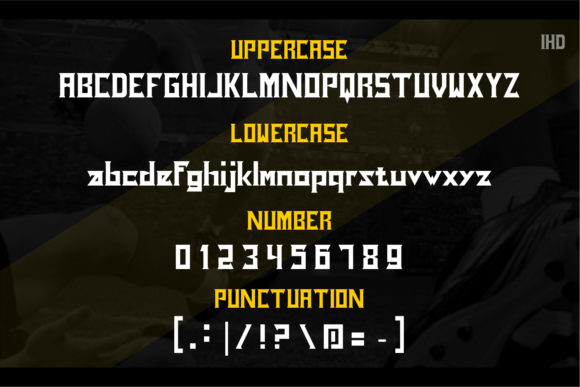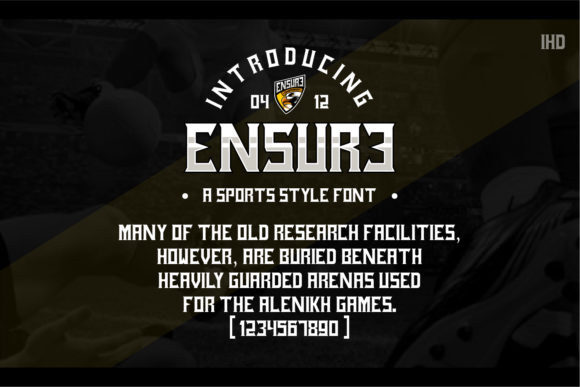
Introducing Ensure Font: A Unique Typeface Inspired by Iconic Typography
Are you tired of using the same old fonts in your designs? Look no further! Ensure Font is a game-changing typeface that is inspired by several iconic typography books. This extraordinary font is elegant, dynamic, and perfect for a wide range of design projects, from logos and posters to layouts, cards, and more.
The Inspiration Behind Ensure Font
The Ensure Font is a masterful blend of classic typography and modern design. The creators of this font drew inspiration from several iconic typography books, carefully crafting a unique typeface that pays homage to the past while still feeling fresh and contemporary. The result is a font that is both elegant and dynamic, with a distinctive character that will elevate your designs to the next level.
Key Features of Ensure Font
So, what makes Ensure Font so special? Here are just a few of its key features:
- Elegant and Refined: Ensure Font has a sophisticated, high-end feel that is perfect for luxury brands, editorial designs, and other high-profile projects.
- Dynamic and Versatile: With its unique blend of classic and modern elements, Ensure Font can be used in a wide range of design applications, from bold and eye-catching headlines to elegant and refined body text.
- Highly Legible: Despite its elegant and refined appearance, Ensure Font is highly legible, even at small sizes. This makes it perfect for use in body text, captions, and other applications where readability is key.
Uses for Ensure Font
Ensure Font is an incredibly versatile typeface that can be used in a wide range of design projects, including:
- Logos and Branding: The elegant and refined appearance of Ensure Font makes it perfect for use in logos and branding materials, where a sophisticated and high-end feel is essential.
- Posters and Flyers: The dynamic and eye-catching appearance of Ensure Font makes it perfect for use in posters and flyers, where you want to grab attention and make a lasting impression.
- Layouts and Magazines: Ensure Font is highly legible and elegant, making it perfect for use in layouts and magazines, where readability and style are essential.
- Cards and Invitations: The refined and sophisticated appearance of Ensure Font makes it perfect for use in cards and invitations, where you want to make a lasting impression.
Why Choose Ensure Font?
With so many fonts to choose from, why should you choose Ensure Font for your next design project? Here are just a few reasons:
- Unique and Distinctive: Ensure Font is a truly unique and distinctive typeface that will help your designs stand out from the crowd.
- Elegant and Refined: The elegant and refined appearance of Ensure Font makes it perfect for use in high-end designs, where a sophisticated feel is essential.
- Highly Versatile: Ensure Font can be used in a wide range of design applications, from logos and posters to layouts and cards.
In conclusion, Ensure Font is a game-changing typeface that is inspired by several iconic typography books. With its elegant and refined appearance, dynamic and versatile design, and highly legible characters, Ensure Font is perfect for a wide range of design projects. Whether you’re a designer, crafter, or simply someone who appreciates great typography, Ensure Font is definitely worth checking out.